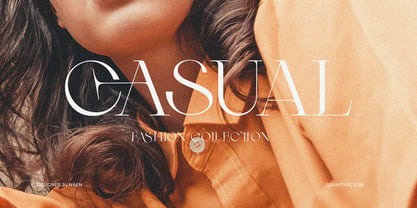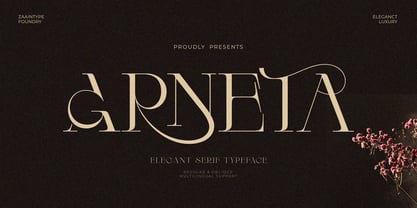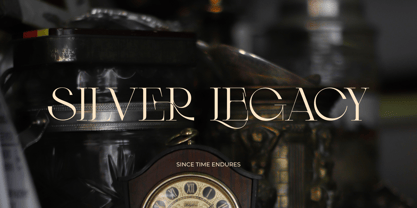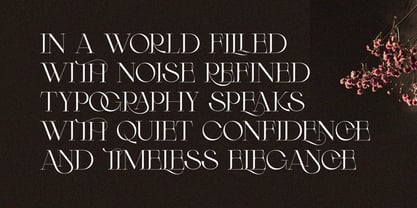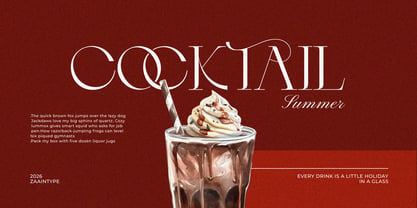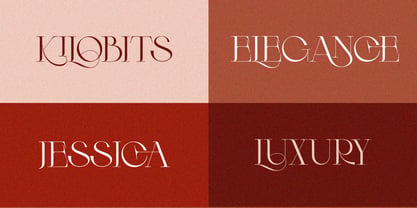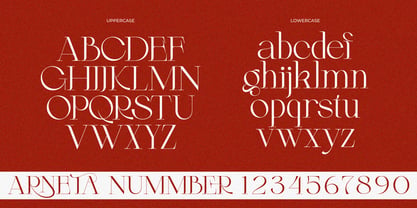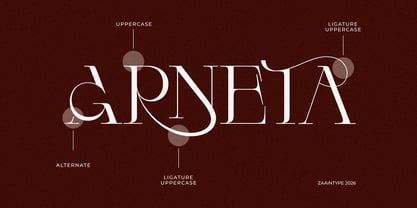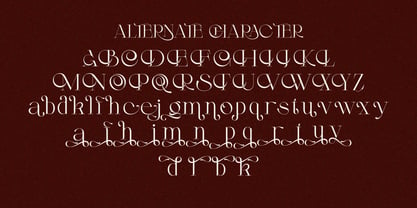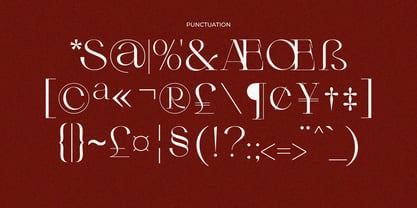
Arneta
La famille de polices Arneta a été conçue par Ju Naen et publiée par Zaain Type. Arneta contient 2 styles et options de package familial. En savoir plus sur cette famille
Arneta is a modern serif font that combines timeless elegance with a refined contemporary touch. Designed with graceful high-contrast letterforms and stylish details, it brings a sophisticated look to any creative project.
Perfect for branding, logos, editorial design, fashion, beauty packaging, invitations, and luxury marketing materials, Arneta offers both beauty and versatility. Whether used for bold headlines or elegant typography, it creates a polished and memorable impression